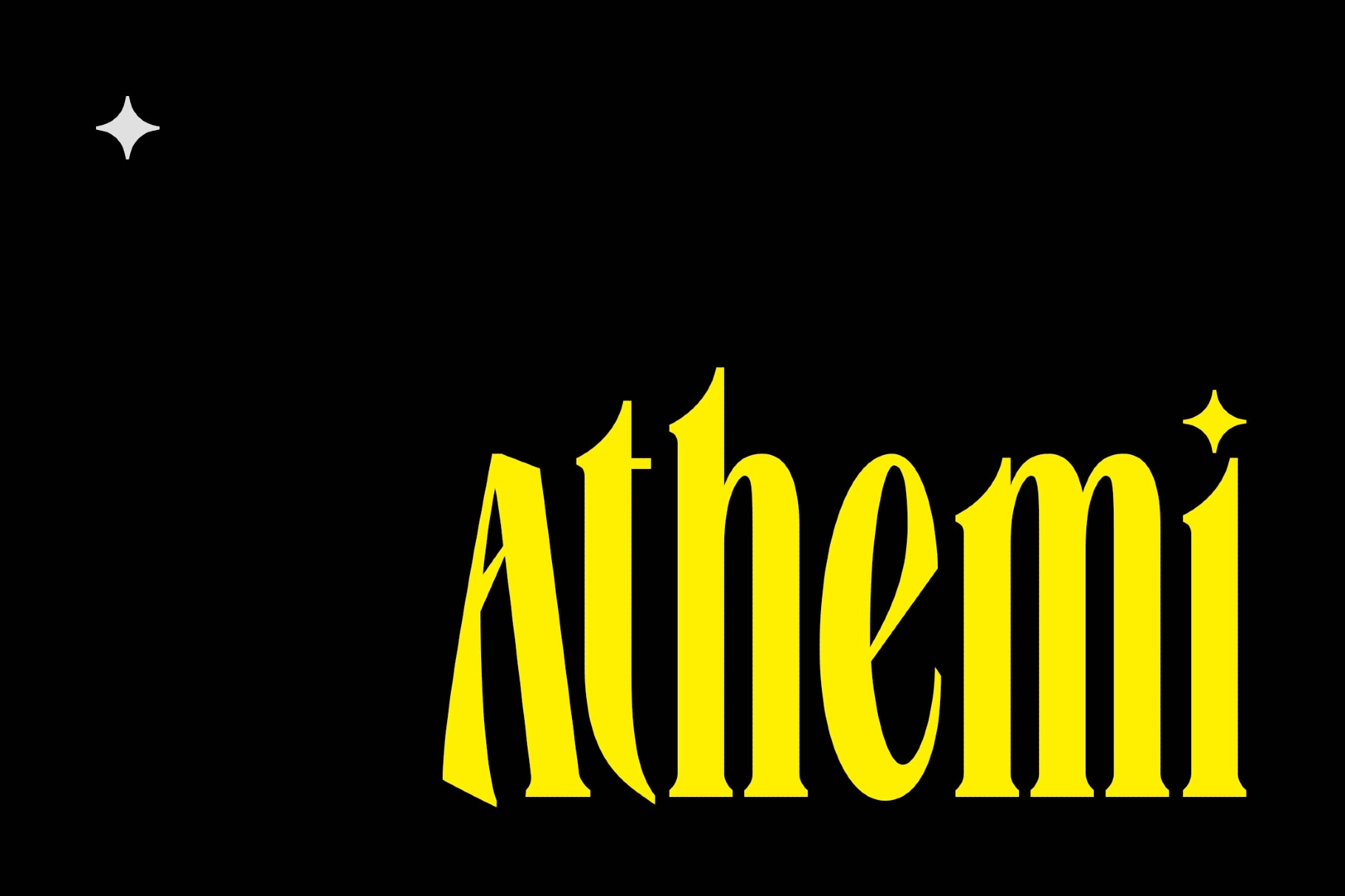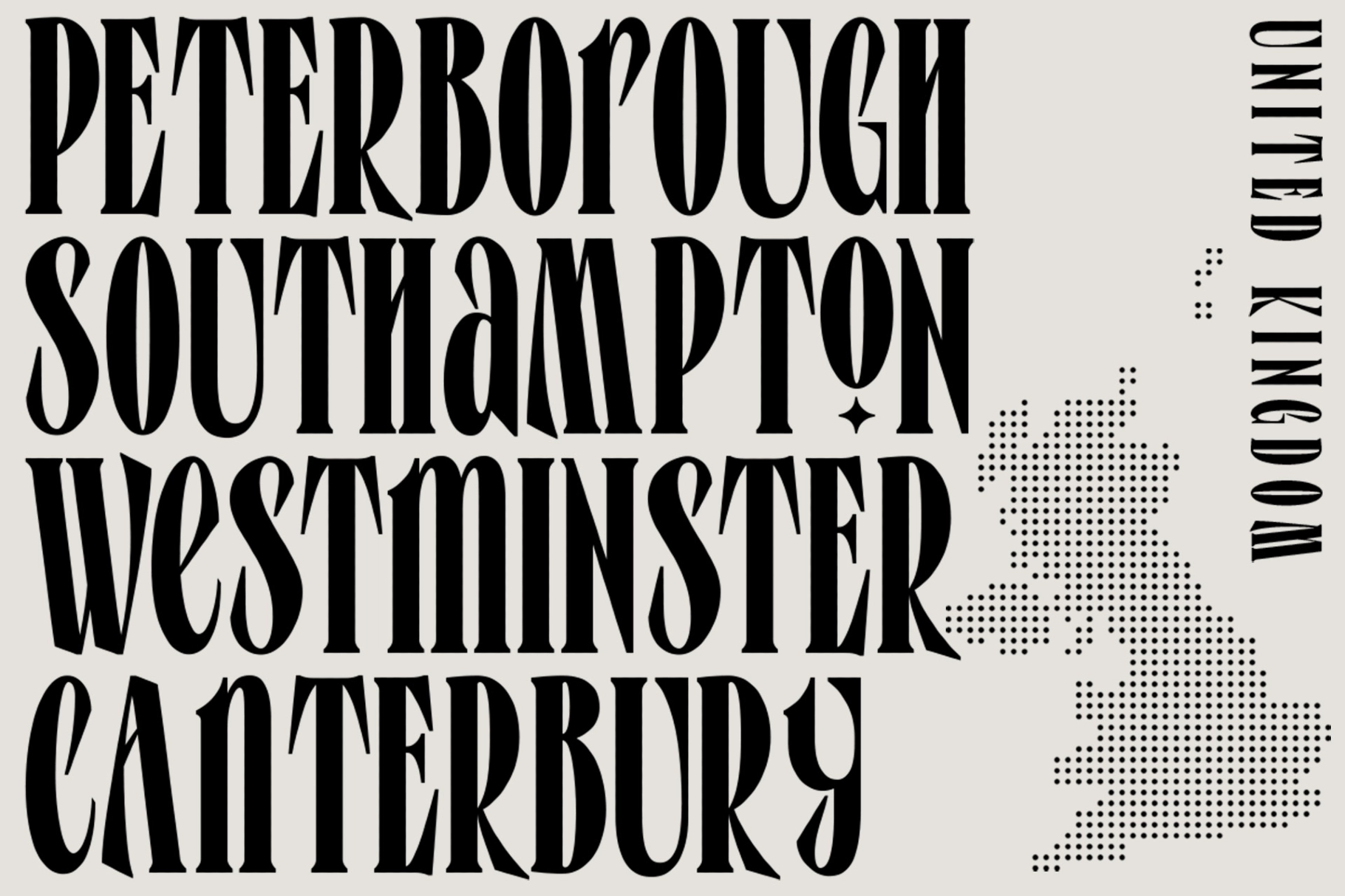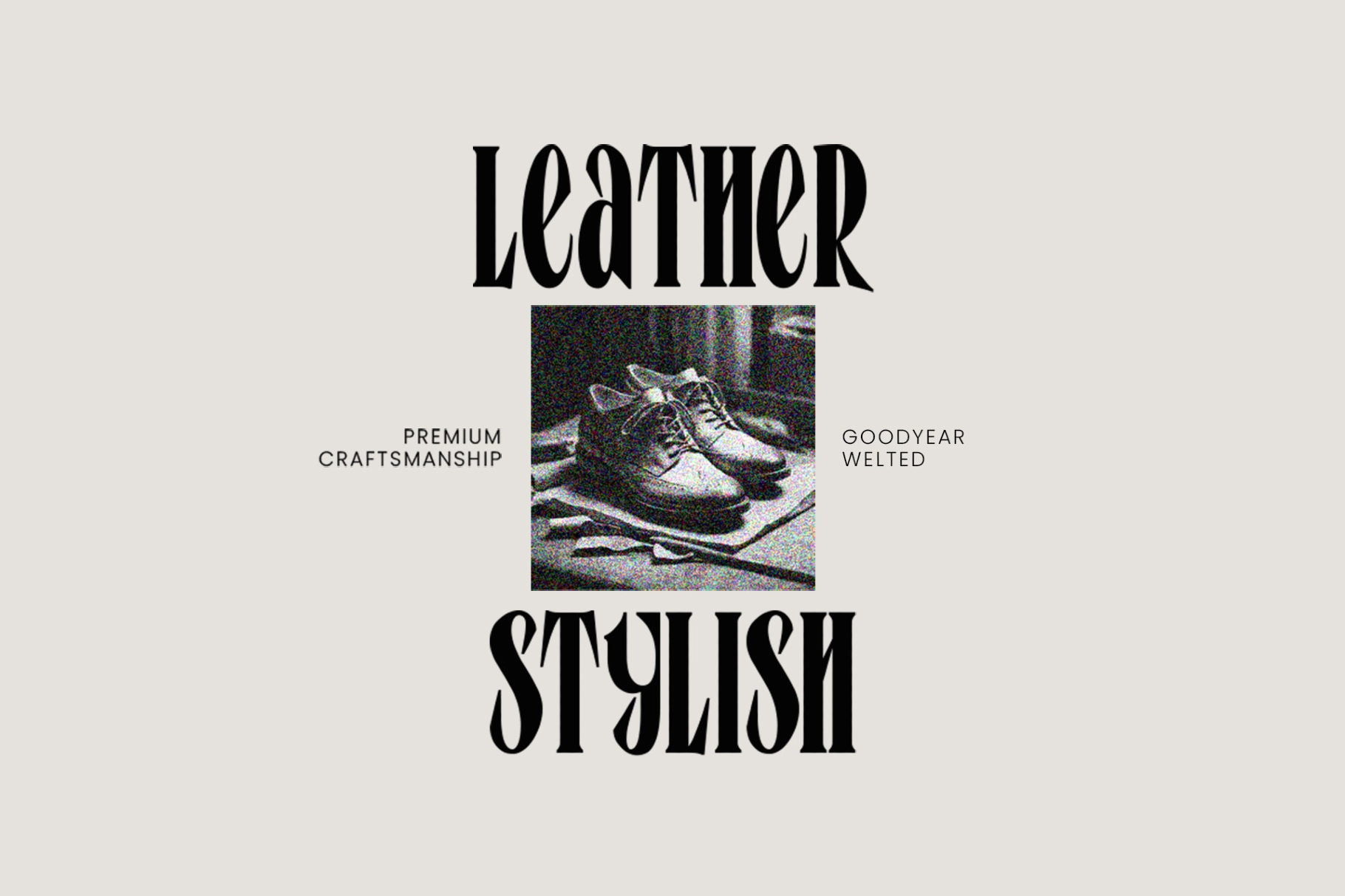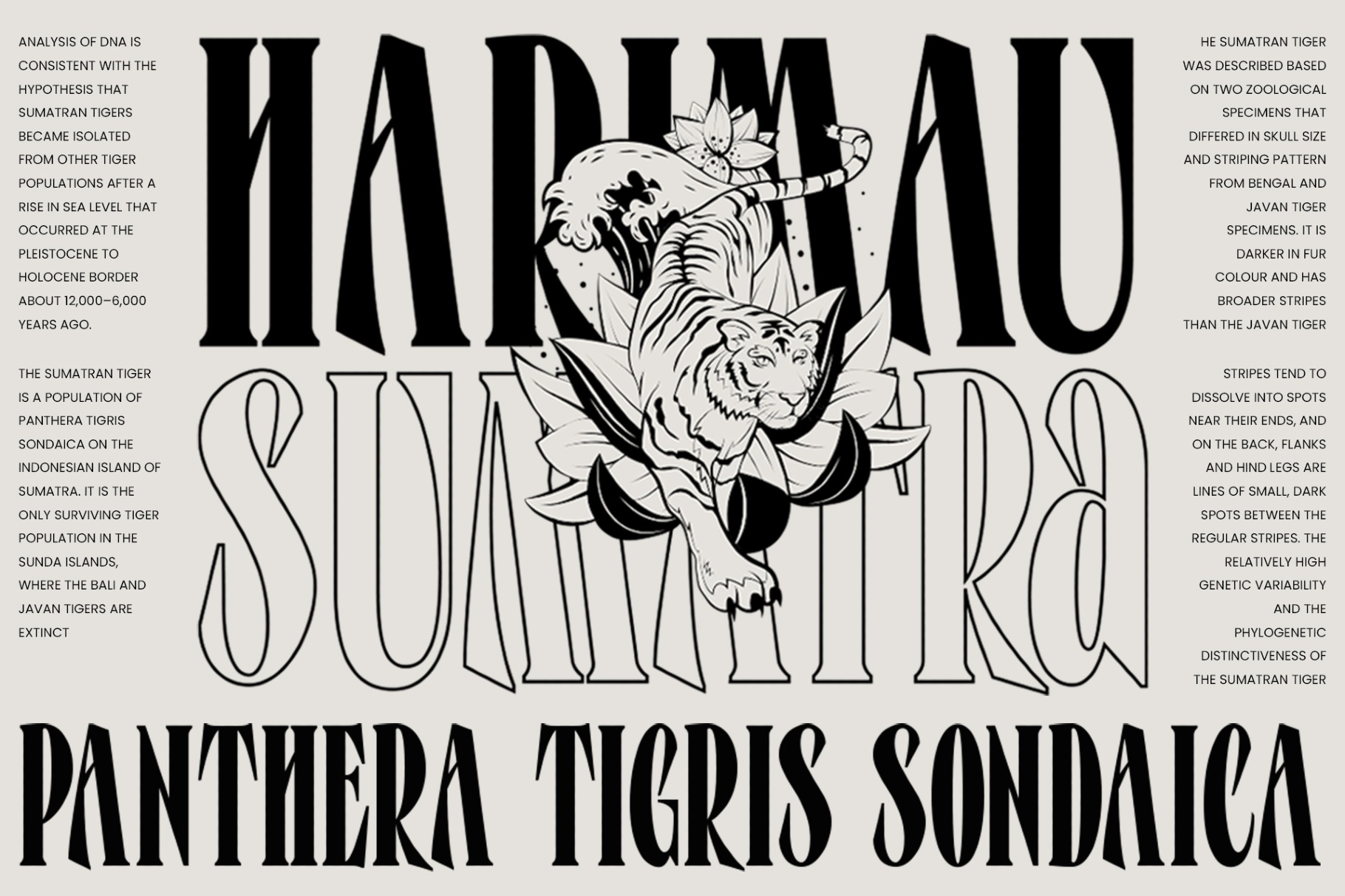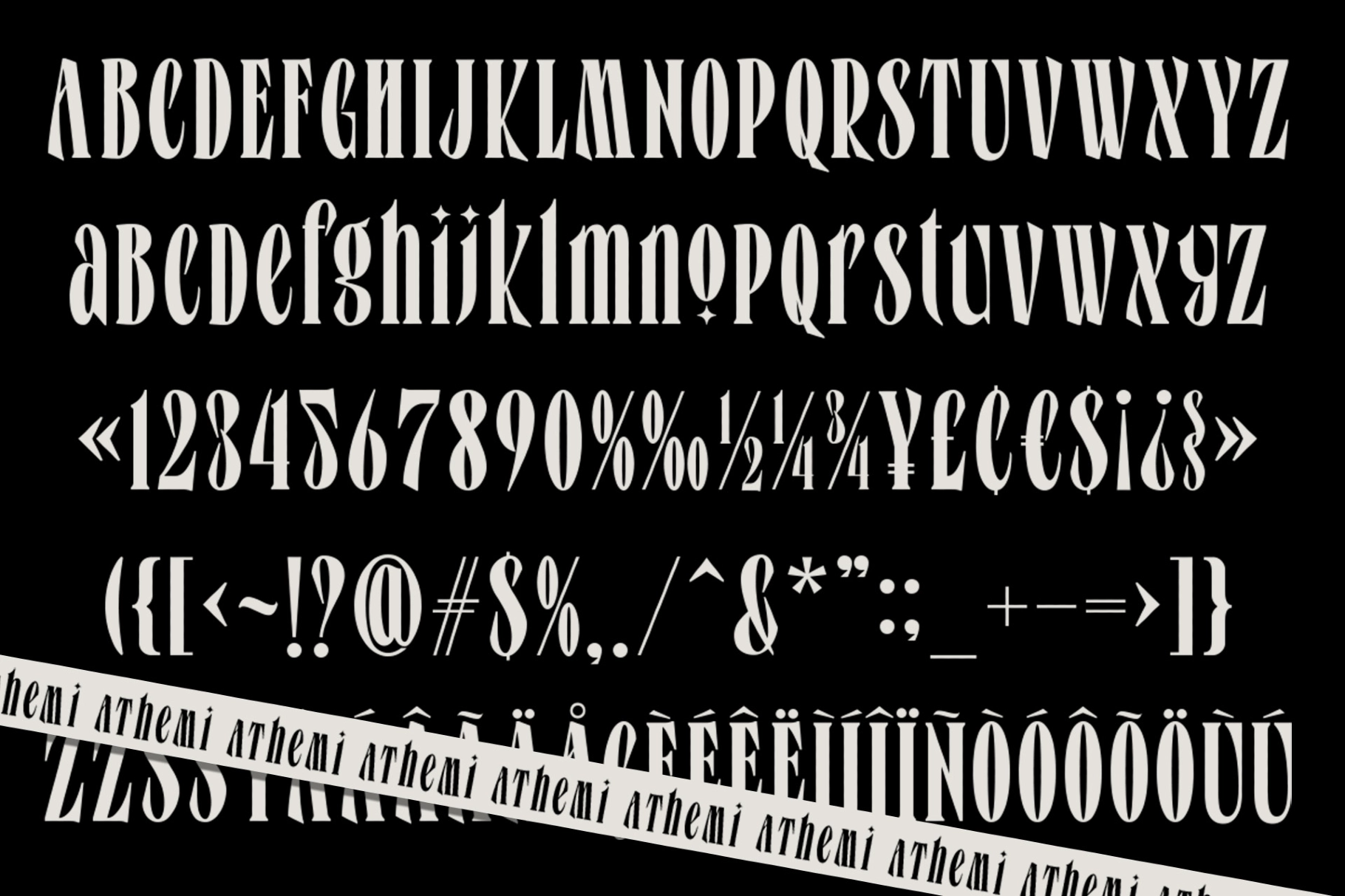
Athemi - Elegant Condensed Serif Font
Athemi stacks its letters tall and narrow, with pointed serifs that curl into small sabre hooks at the top of each stem, like a fashion-house monogram carved into leather or stamped into a vintage travel poster. This tall condensed serif font runs on sharp, high-contrast strokes, and the dots over the i and j swap out for tiny four-point stars, giving even body text a hint of theatrical polish.
The condensed width holds up in narrow logo lockups and vertical signage alike, and the pointed serifs keep their edge whether Athemi runs across a full headline or sits cropped tight around a single word. Use it for fashion and leather-goods branding, editorial headlines, gig posters, tattoo and streetwear logos, wine and spirits labels, city and travel posters, magazine mastheads, and boutique packaging.
• Uppercase & lowercase;
• Numerals, punctuation & symbols;
• Fractions & currency symbols;